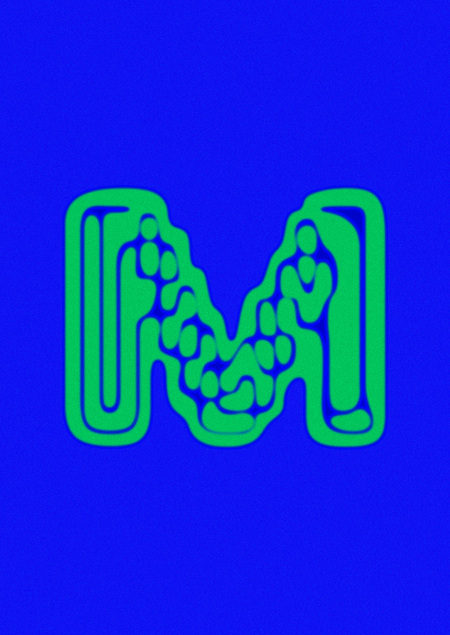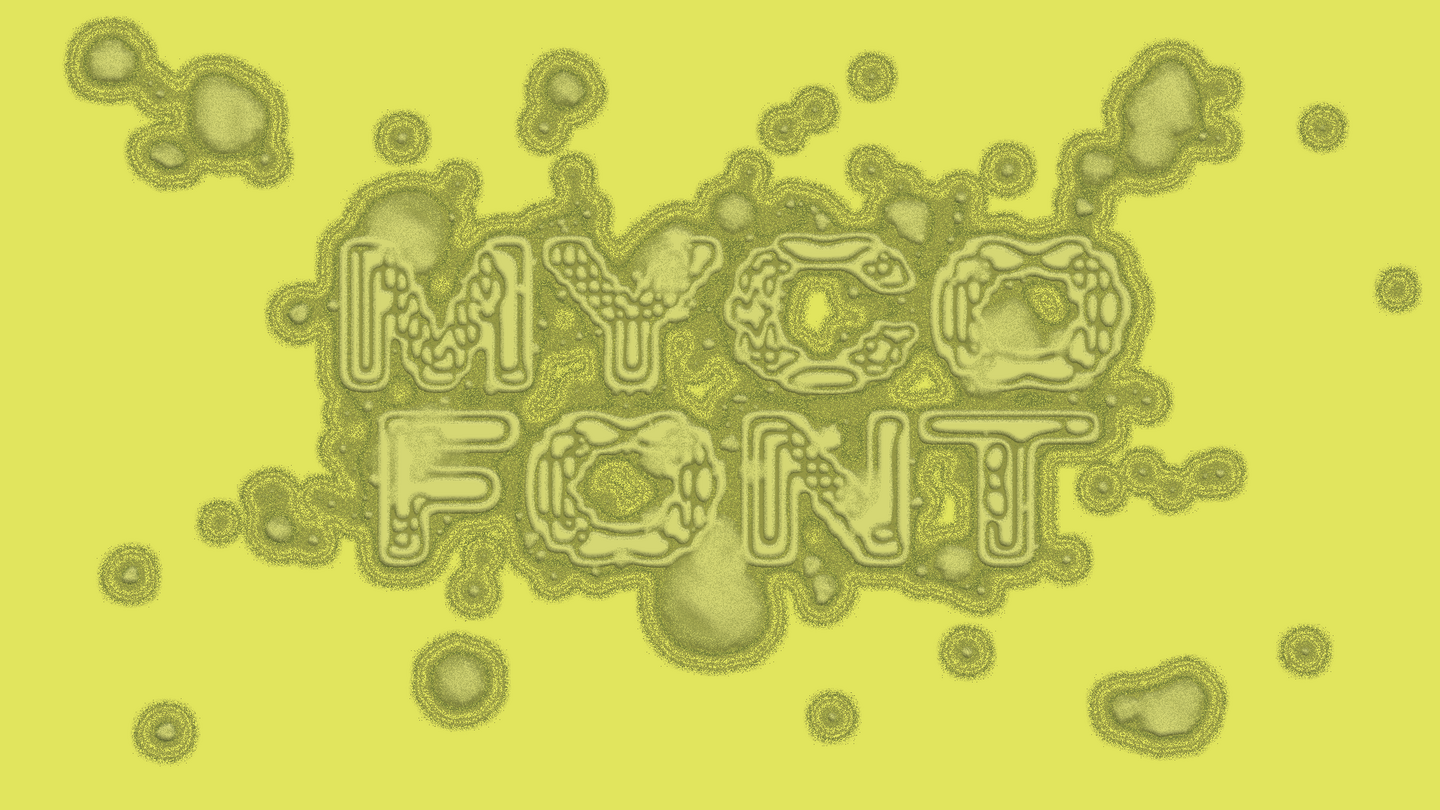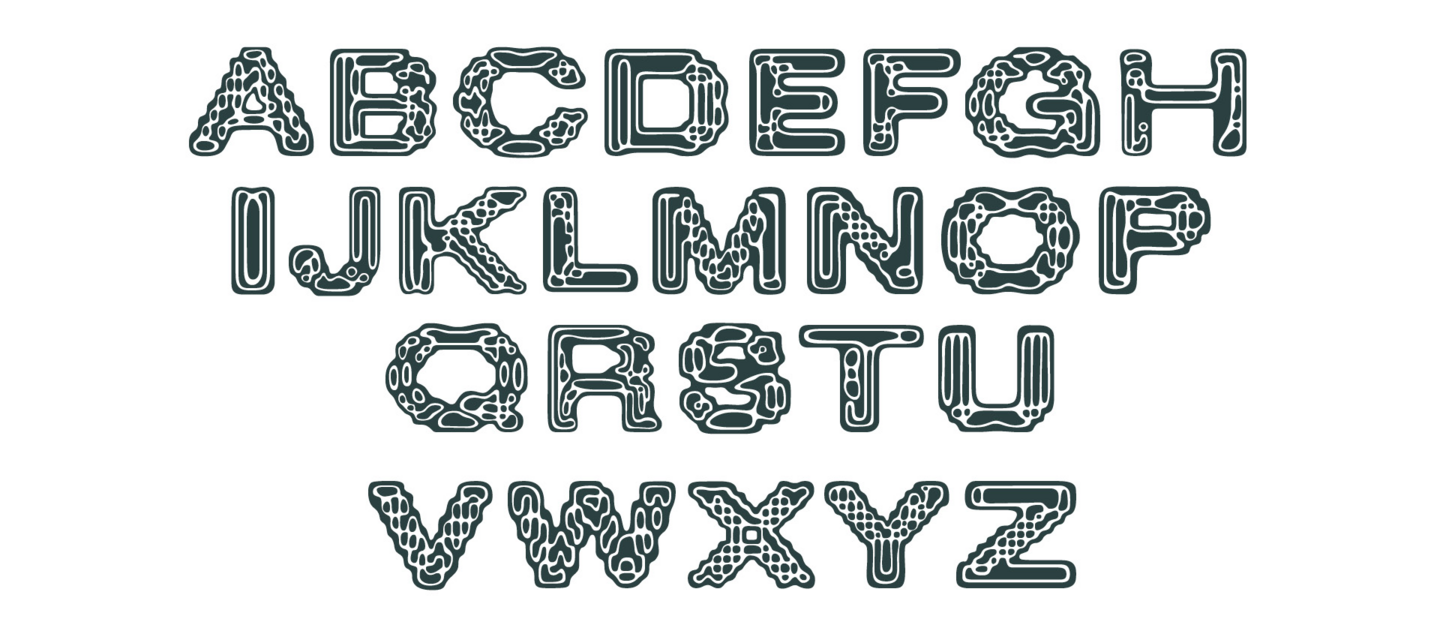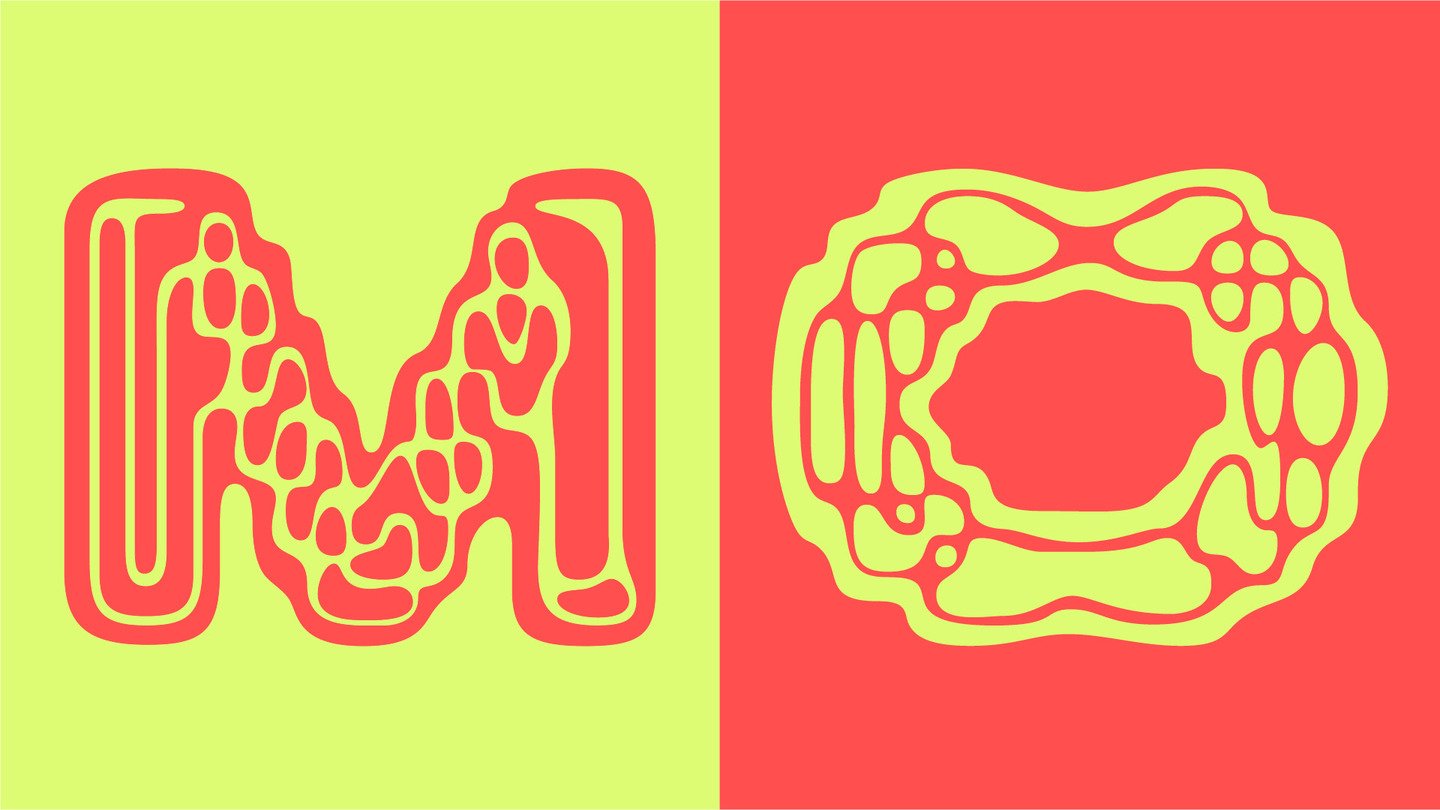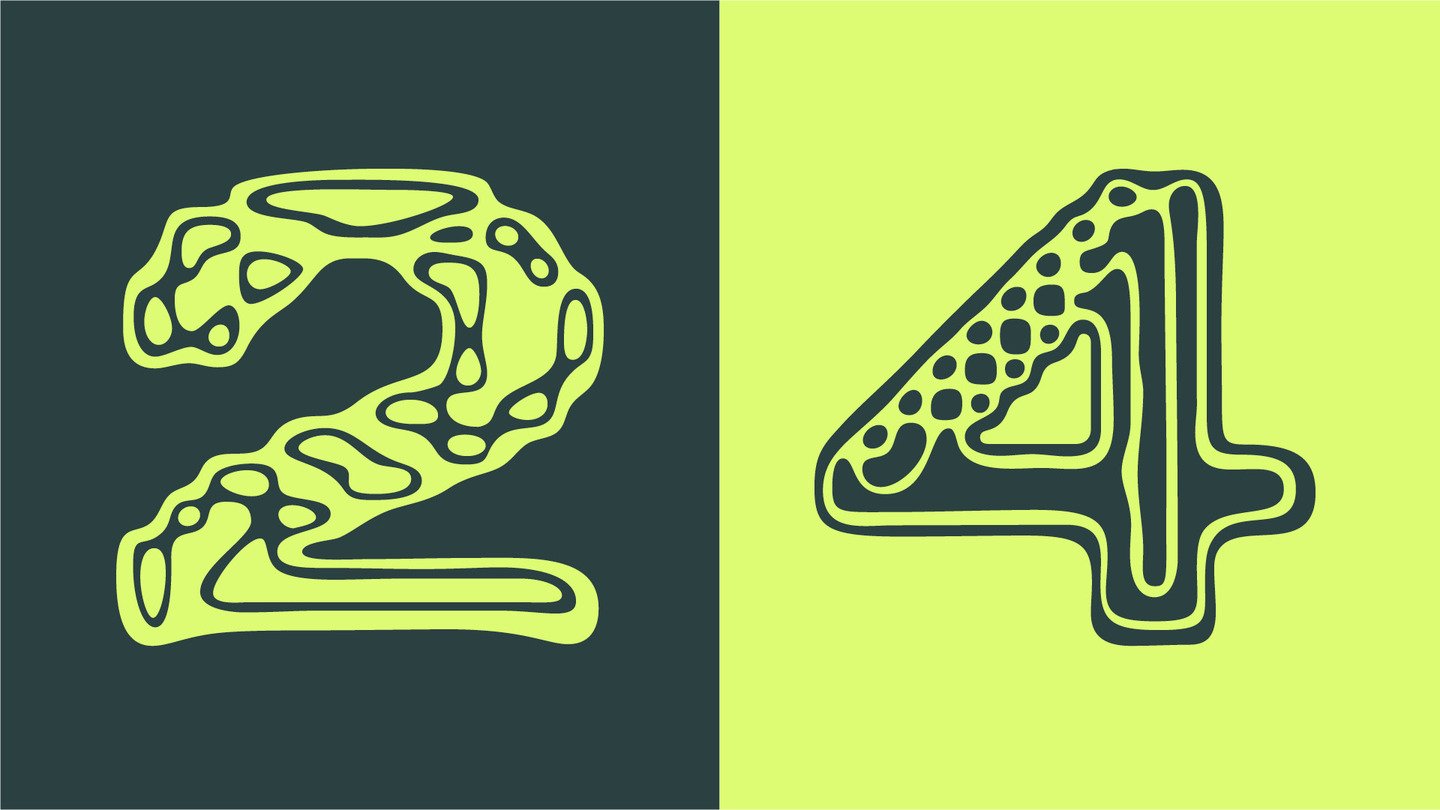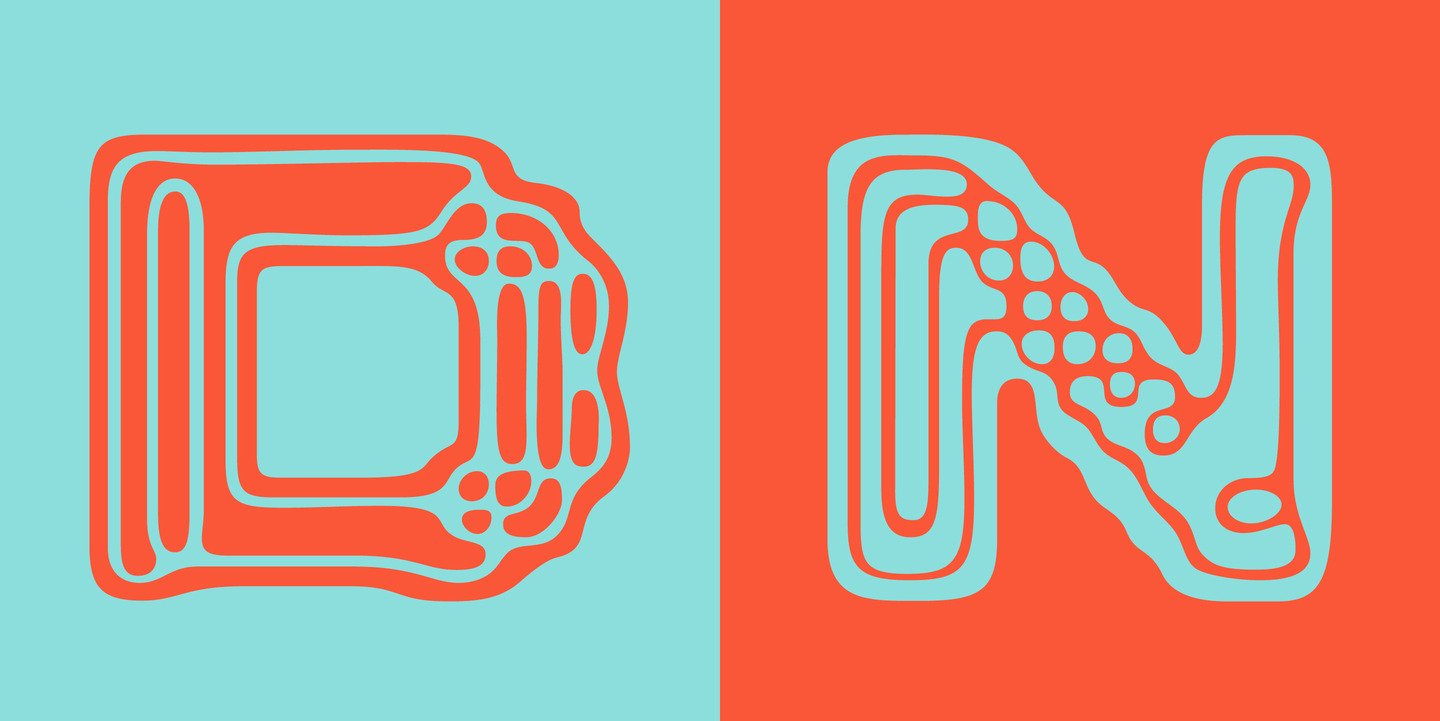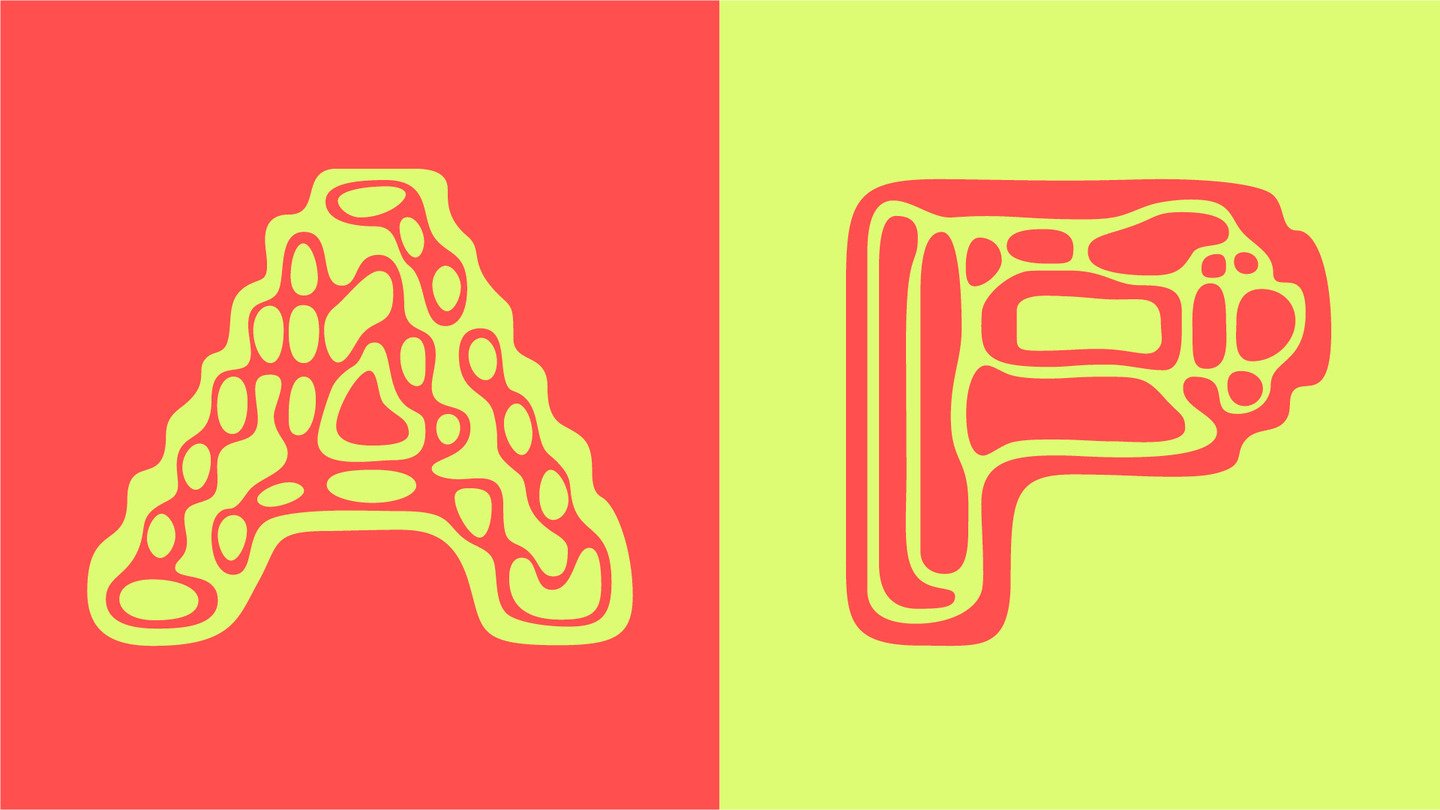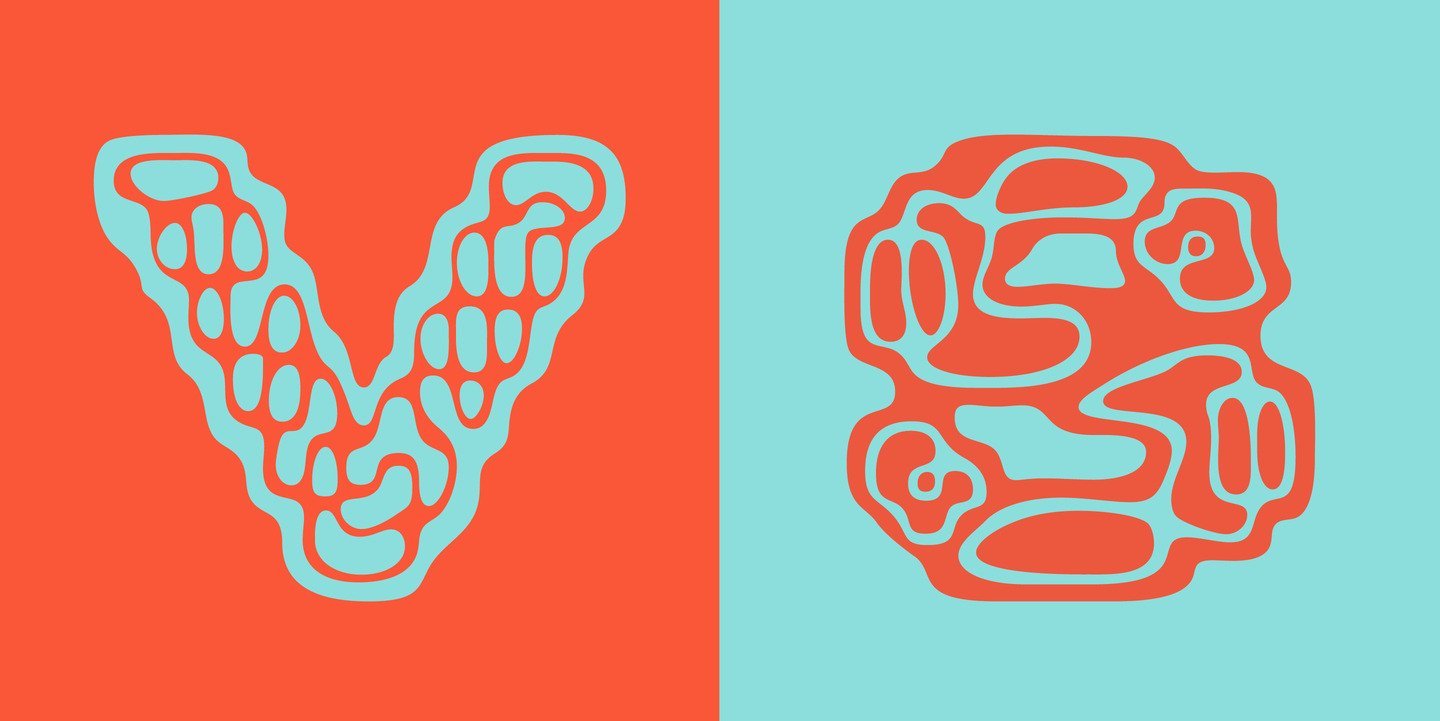
MYCO FONT
MYCO is a typeface inspired by agar art, where microbiology is seen with visual creativity. It reflects the cultivation of bacteria on agar-agar in Petri’s cups, turning scientific experiments into unique artistic forms.
ARTIS-Micropia is the world’s first museum dedicated to micro-organisms. This interactive scientific museum, located in Amsterdam, presents more than 40 species of living microbes that can be explored under microscopes.